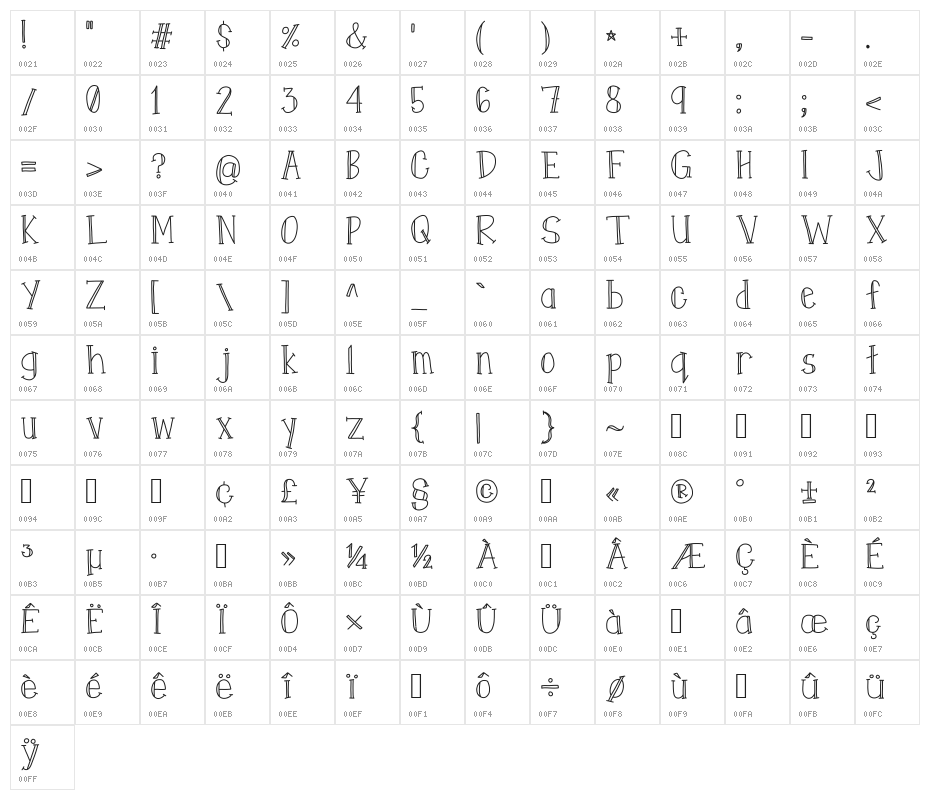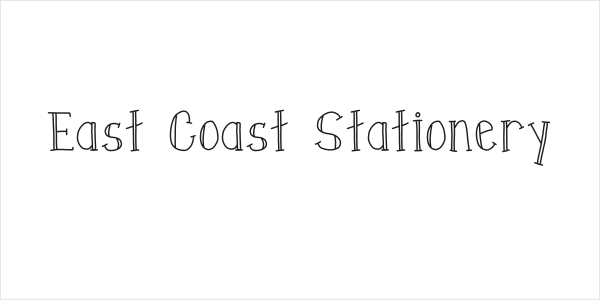
East Coast Stationery Font
East Coast Stationery Description
This font features a playful and whimsical design, characterized by its hand-drawn appearance. The letters have a slightly irregular shape, adding a casual and friendly feel. The strokes are consistent in width, giving it a uniform look despite its quirky style. The uppercase letters are tall and narrow, while the lowercase letters maintain a similar height, creating a cohesive appearance. Numbers and special characters are designed to match the overall style, ensuring versatility in various applications. The font's unique charm makes it suitable for creative and informal projects.
| Proposed Projects | Ideal for greeting cards, children's books, playful branding, and DIY projects. |